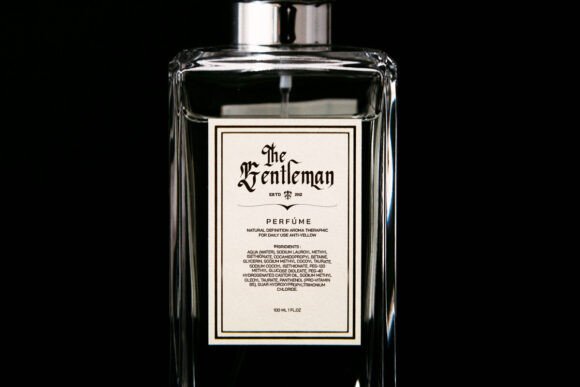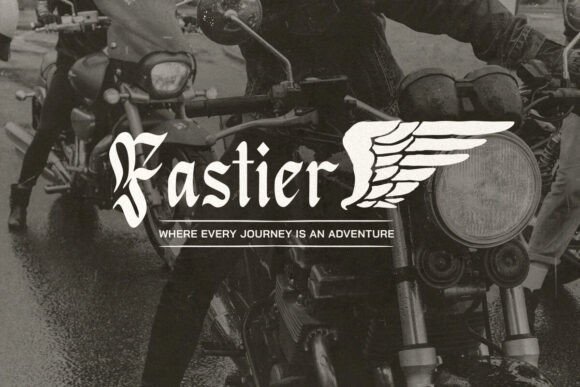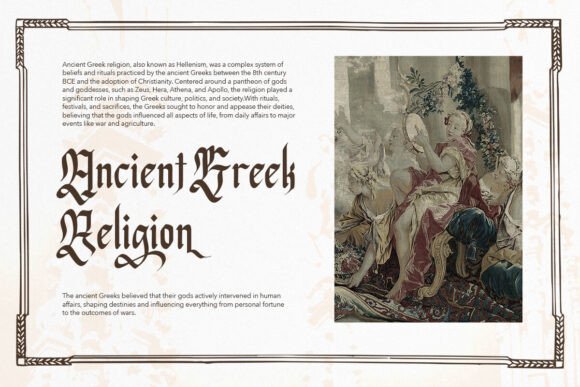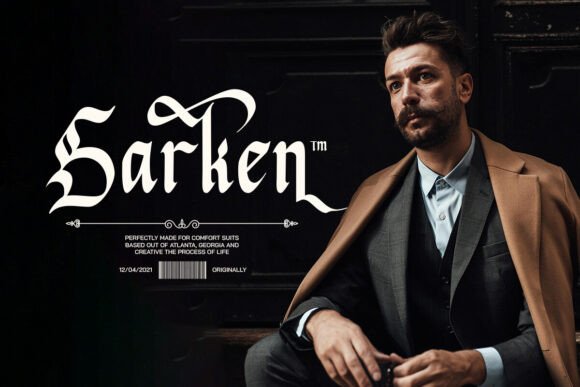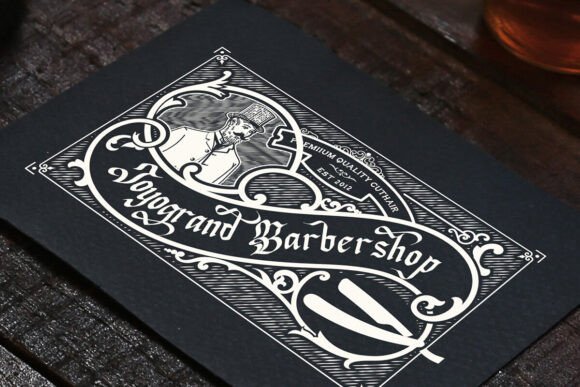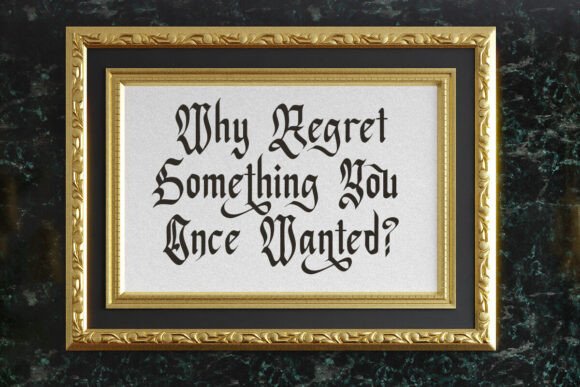
Introducing Blank Night Font: The Ultimate Modern Blackletter Font for Retro and Vintage Designs
Are you a designer or crafter looking for a font that can add a touch of elegance and sophistication to your designs? Look no further than Blank Night Font, a modern and stylish Blackletter font that’s perfect for creating retro and vintage-inspired designs. With its stylish alternates and multi-language support, Blank Night Font is the ultimate choice for designers and crafters who want to create stunning quotes, album covers, logos, movie posters, and more.
What is Blank Night Font?
Blank Night Font is a modern Blackletter font that’s designed to bring a touch of nostalgia and vintage charm to your designs. Its sleek and stylish lines make it perfect for creating designs that require a retro or vintage look. Whether you’re creating a logo, album cover, or movie poster, Blank Night Font is the perfect choice for adding a touch of elegance and sophistication.
Key Features of Blank Night Font
• Modern and Stylish Design: Blank Night Font features a modern and stylish design that’s perfect for creating retro and vintage-inspired designs.
• Stylish Alternates: The font comes with stylish alternates that allow you to add a touch of uniqueness to your designs.
• Multi-Language Support: Blank Night Font supports multiple languages, making it perfect for designers and crafters who work with international clients.
• Versatile: The font is versatile and can be used for a wide range of designs, including quotes, album covers, logos, movie posters, and more.
Uses of Blank Night Font
Blank Night Font is a versatile font that can be used for a wide range of designs. Here are some of the most popular uses of the font:
• Quotes: Use Blank Night Font to create stunning quotes that are perfect for social media, posters, and flyers.
• Album Covers: The font is perfect for creating album covers that require a retro or vintage look.
• Logos: Use Blank Night Font to create elegant and sophisticated logos that are perfect for businesses and brands.
• Movie Posters: The font is perfect for creating movie posters that require a retro or vintage look.
Why Choose Blank Night Font?
There are many reasons why you should choose Blank Night Font for your designs. Here are some of the most compelling reasons:
• Unique Design: Blank Night Font features a unique design that’s perfect for creating retro and vintage-inspired designs.
• High-Quality: The font is of high quality and is perfect for professional designs.
In conclusion, Blank Night Font is a modern and stylish Blackletter font that’s perfect for creating retro and vintage-inspired designs. With its stylish alternates, multi-language support, and versatility, the font is perfect for designers and crafters who want to create stunning quotes, album covers, logos, movie posters, and more. Whether you’re a professional designer or a crafter, Blank Night Font is the ultimate choice for adding a touch of elegance and sophistication to your designs.